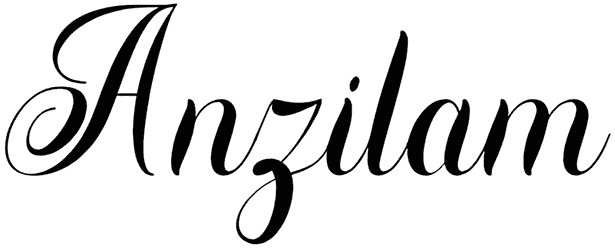
Valuable writings such as wedding cards, office letterhead, and love letters should be written with a prized font. Anzilam is the signature font that can give eternal credibility to your writings and place them at a point beyond the level they are.
By using this calligraphy font, you can place yourself in the audience’s mind as a reliable brand and, at the same time, without using additional decorations, make your designs pleasing without numbers.
Anzilam is a modern calligraphy font. It brings a beautiful and attractive typeface. Made for any
professional project branding. It is the best for logos, branding, wedding and quotes.What’s included: